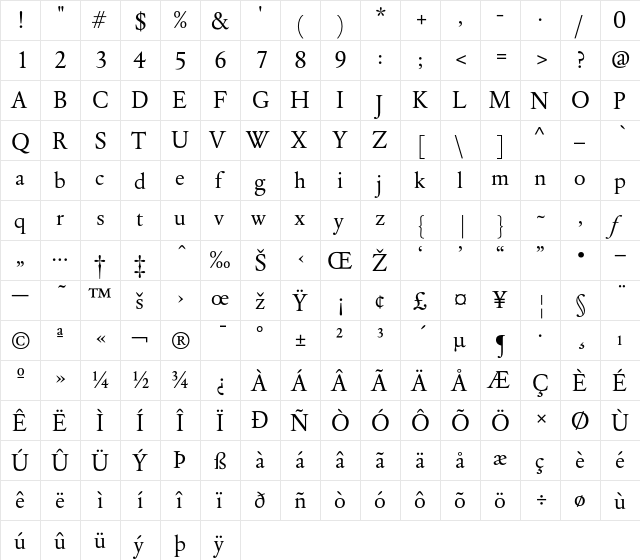
DTLElzevirT Regular
Design Context for DTLElzevirT Typeface
DTLElzevirT offers clean, dependable letterforms without strong stylistic allegiance, making it a practical choice for designers who need flexibility.